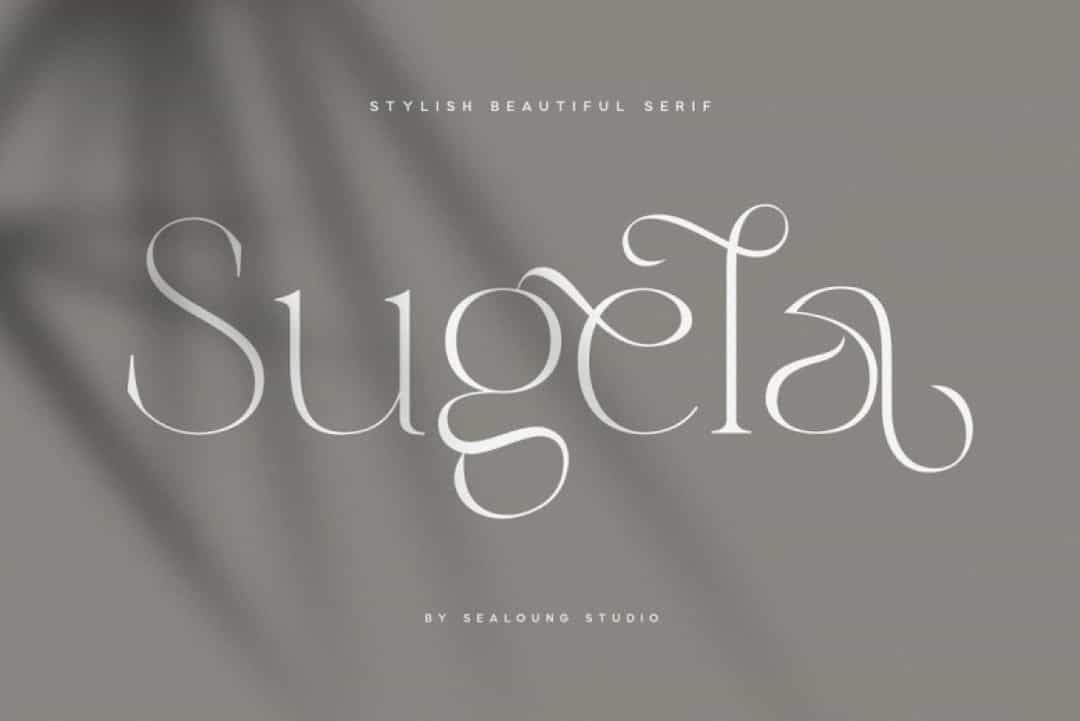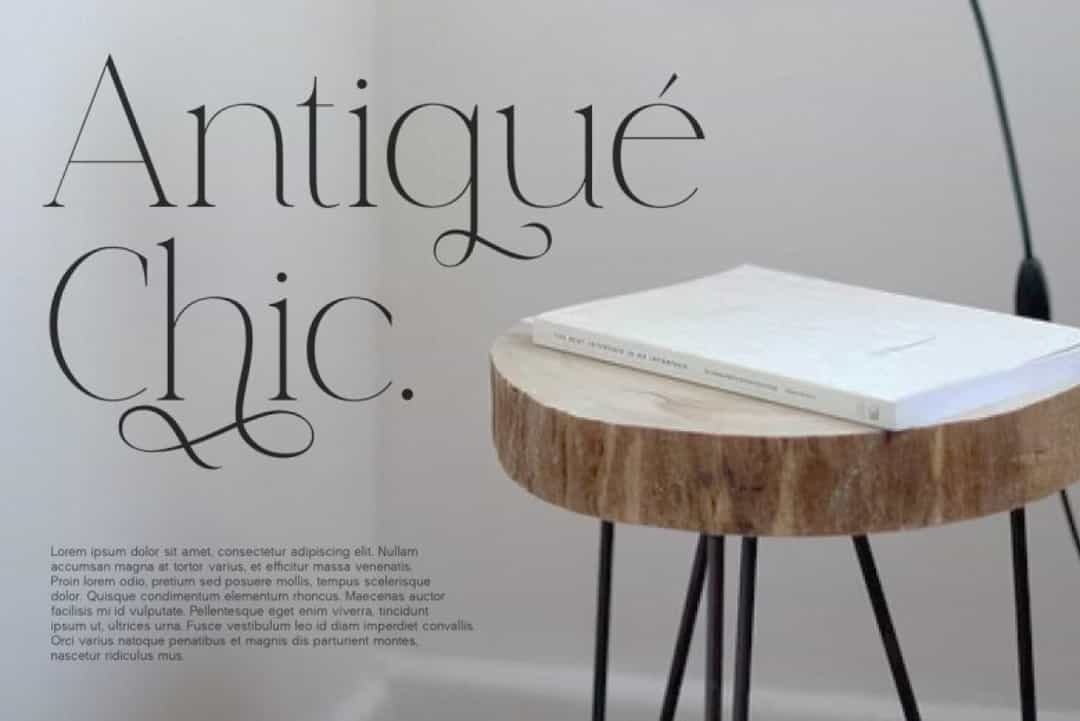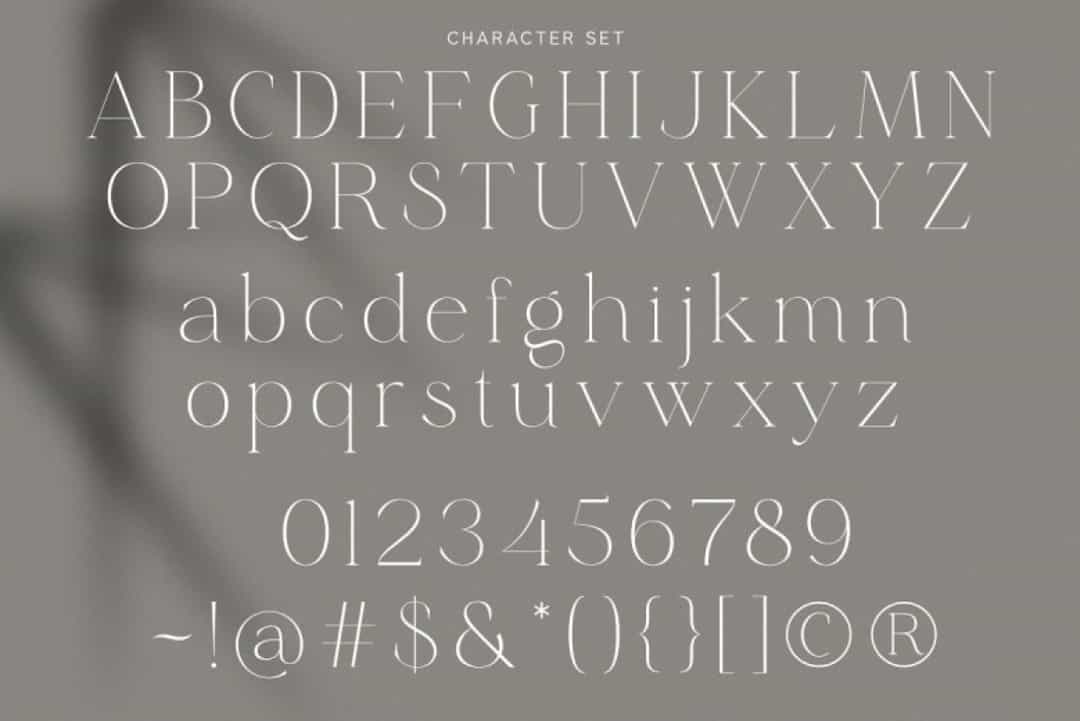
Sugela is a classy new beautiful serif font. The serifs that we made specifically for the needs of elegant branding, with additional ligatures and alternates in a more feminine and unique form will be ready to add value to your brand. It’s great to take advantage of designers or product owners who need a solution to make their designs look more classy and modern.